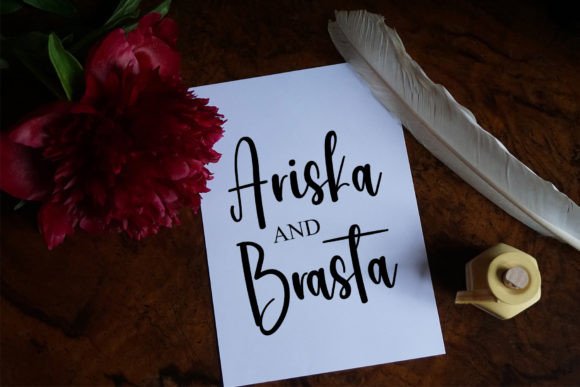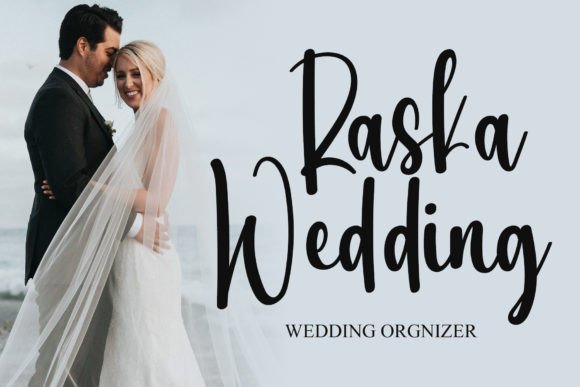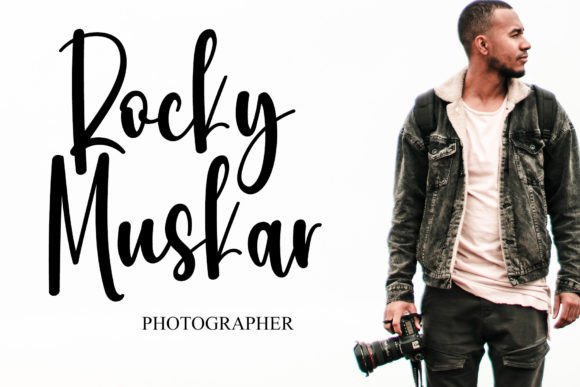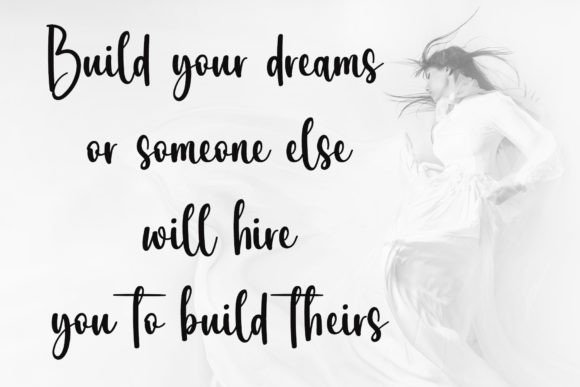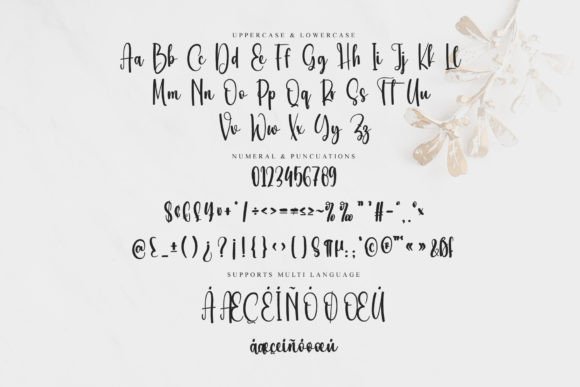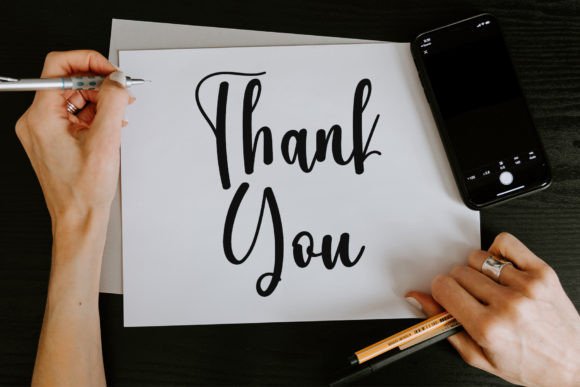
Introducing Breakdown Font: Elevate Your Designs with Timeless Elegance
In the world of typography, a well-crafted font can make all the difference in elevating your designs from ordinary to extraordinary. Breakdown Font is a stunning handwritten font that embodies the perfect blend of classic sophistication and modern flair. Inspired by the timeless beauty of traditional calligraphy, Breakdown Font brings a touch of elegance and refinement to any project.
The Inspiration Behind Breakdown Font
Breakdown Font draws its inspiration from the classic calligraphic styles that have been revered for centuries. With a keen eye for detail and a deep understanding of typographic nuances, the designers of Breakdown Font have meticulously crafted each letterform to exude a sense of sophistication and poise. The result is a font that not only pays homage to the past but also feels refreshingly contemporary.
Key Features of Breakdown Font
So, what sets Breakdown Font apart from other fonts in its class? Here are some of its key features:
- Handwritten with love: Breakdown Font is a carefully crafted handwritten font, imbuing each letter with a personal touch that feels both intimate and refined.
- Contemporary atmosphere: While rooted in classic calligraphy, Breakdown Font boasts a distinctly modern feel that makes it perfect for a wide range of design applications.
- Impeccable form: Every letterform in Breakdown Font has been meticulously designed to showcase impeccable form and flawless execution.
- Balanced and varied: The font features a thoughtful balance of thick and thin strokes, along with a range of subtle variations, to create a visually appealing and engaging text.
Why Choose Breakdown Font?
Whether you’re a designer, crafty DIY enthusiast, or simply someone who appreciates beautiful typography, Breakdown Font offers a wealth of benefits. Here are just a few reasons why Breakdown Font should be your go-to choice for your next project:
- Elevate your designs: With Breakdown Font, you can add a touch of sophistication and elegance to your designs, setting them apart from the ordinary.
- Perfect for a range of applications: From branding and packaging to wedding invitations and digital media, Breakdown Font is versatile enough to shine in any context.
- Easy to read and beautiful to behold: Breakdown Font strikes the perfect balance between legibility and aesthetics, making it a joy to read and behold.
Using Breakdown Font in Your Designs
So, how can you incorporate Breakdown Font into your designs? Here are a few ideas to get you started:
- Branding and logos: Use Breakdown Font to create a memorable and stylish logo that captures the essence of your brand.
- Wedding and event invitations: Add a touch of romance and sophistication to your wedding or event invitations with Breakdown Font.
- Digital media: Use Breakdown Font to create eye-catching social media graphics, blog headers, and more.
In conclusion, Breakdown Font is a truly exceptional handwritten font that brings a level of sophistication and refinement to any design project. With its timeless classic calligraphy inspiration, impeccable form, and balanced, varied letterforms, Breakdown Font is the perfect choice for designers and crafters looking to elevate their designs. So why wait? Discover the beauty of Breakdown Font for yourself and take your designs to new heights.